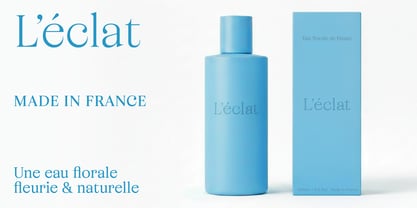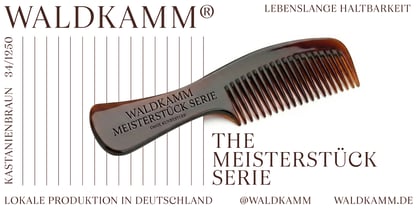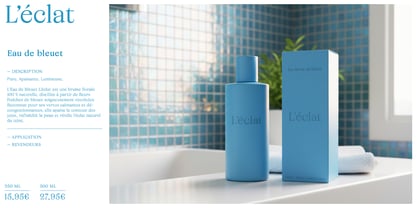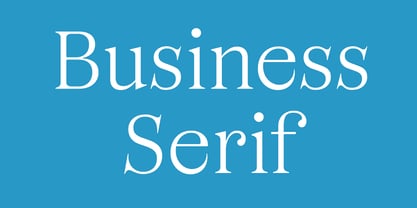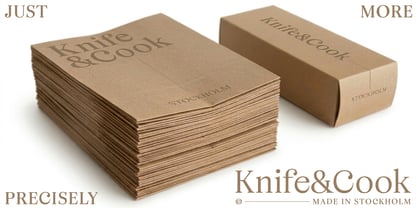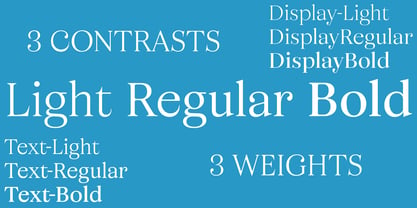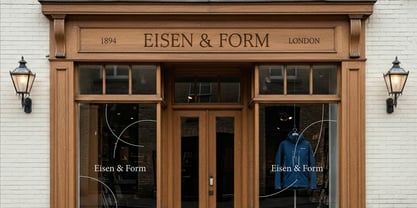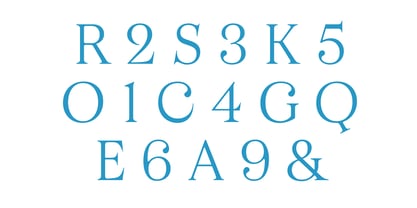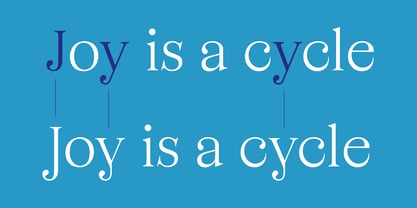
Business Serif
Business Serif is a warm and inviting typeface that complements Business Blooming and Business Didot. Crafted entirely through curves and subtle sharpening, it develops a distinctive rhythm that feels both welcoming and refined. Its generous yet controlled forms allow the eye to glide smoothly across the line. The soft curves enhance accessibility, while the carefully honed terminals introduce clarity and structure. This balance gives the typeface its unique tone—comfortable yet precise. Business Serif adds a human touch to the Business family, excelling in editorial settings, brand communication, and long reading contexts where personality and legibility must coexist. Together with Business Blooming and Business Didot, it completes a typographic dialogue where fluidity, contrast, and warmth interact, shaping a contemporary and harmonious voice.